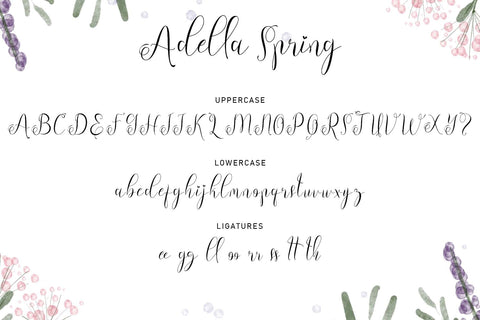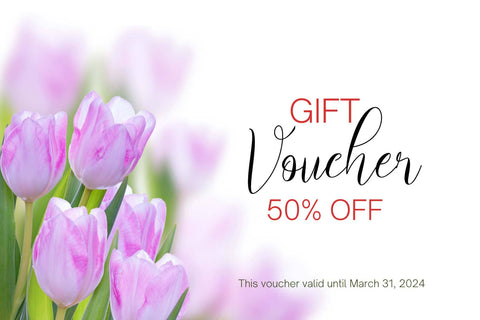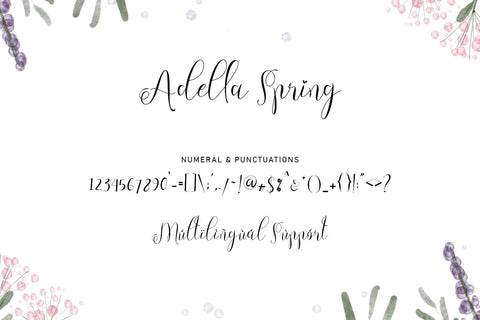
Adella Spring
"Adella Spring" is a beautiful and elegant handwritten font. This font is equipped with uppercase, lowercase, ligatures, numerals, punctuation, and multilingual support. Very suitable for weddings, invitations, parties, spring, summer, banners, branding, stickers, logos, and others.